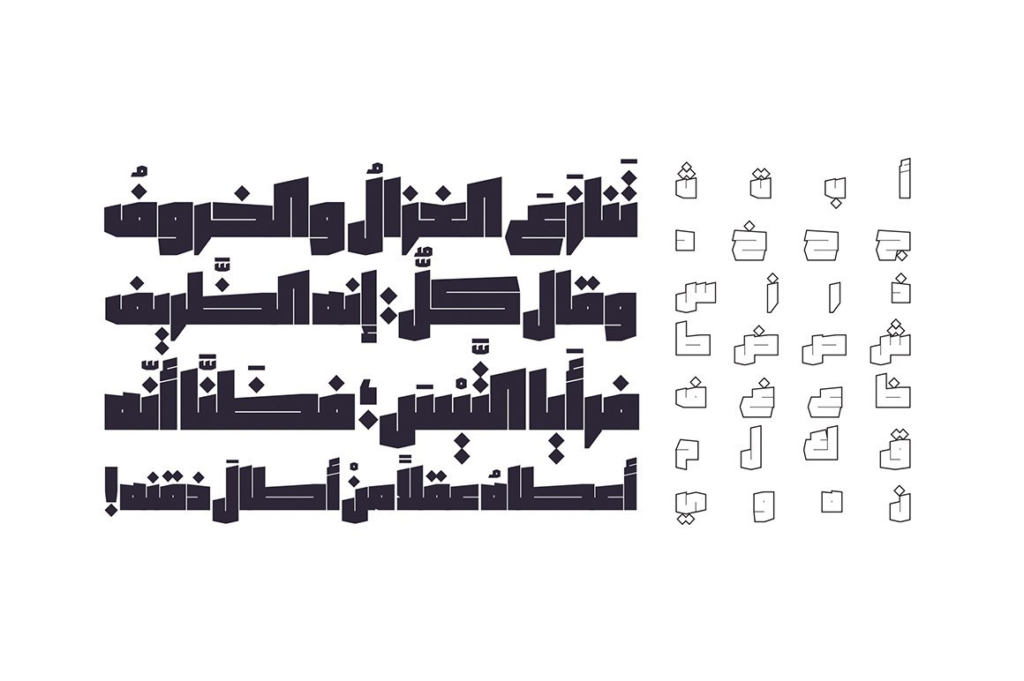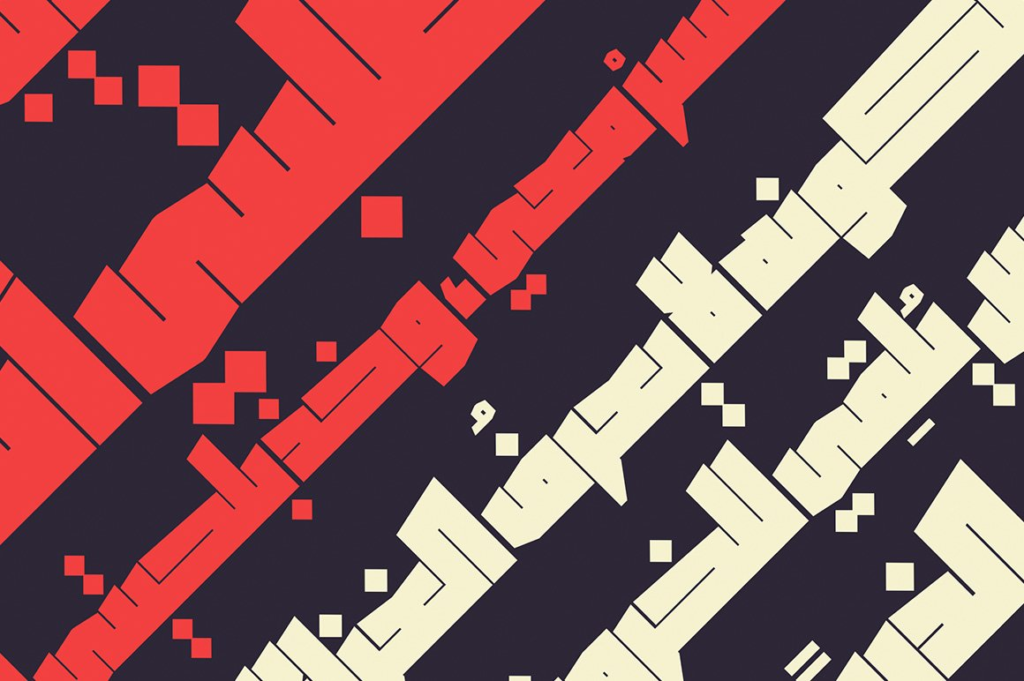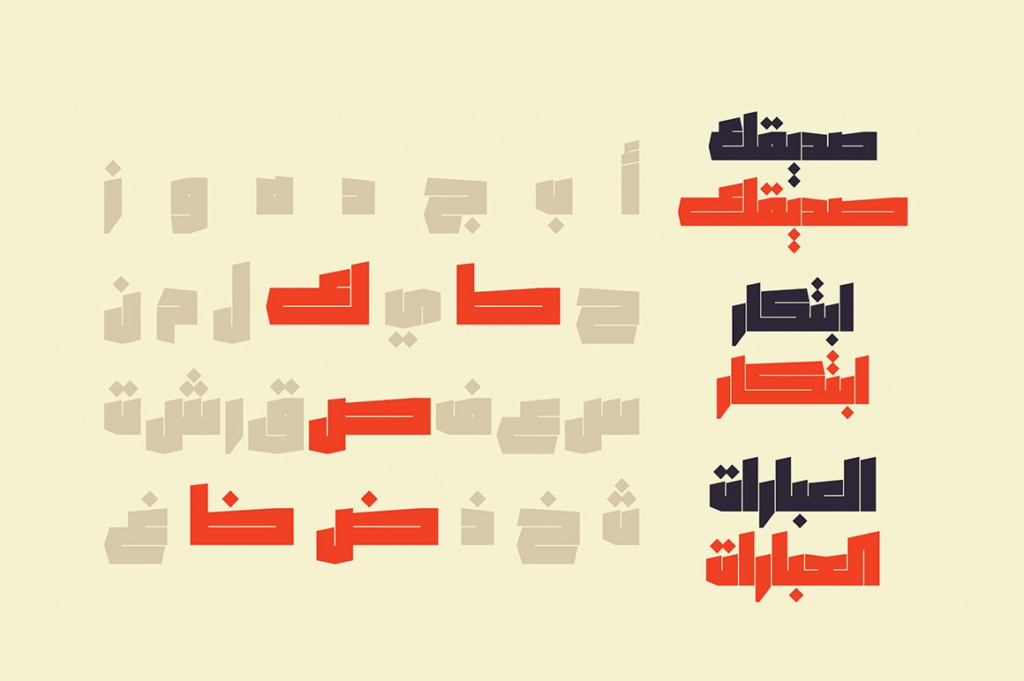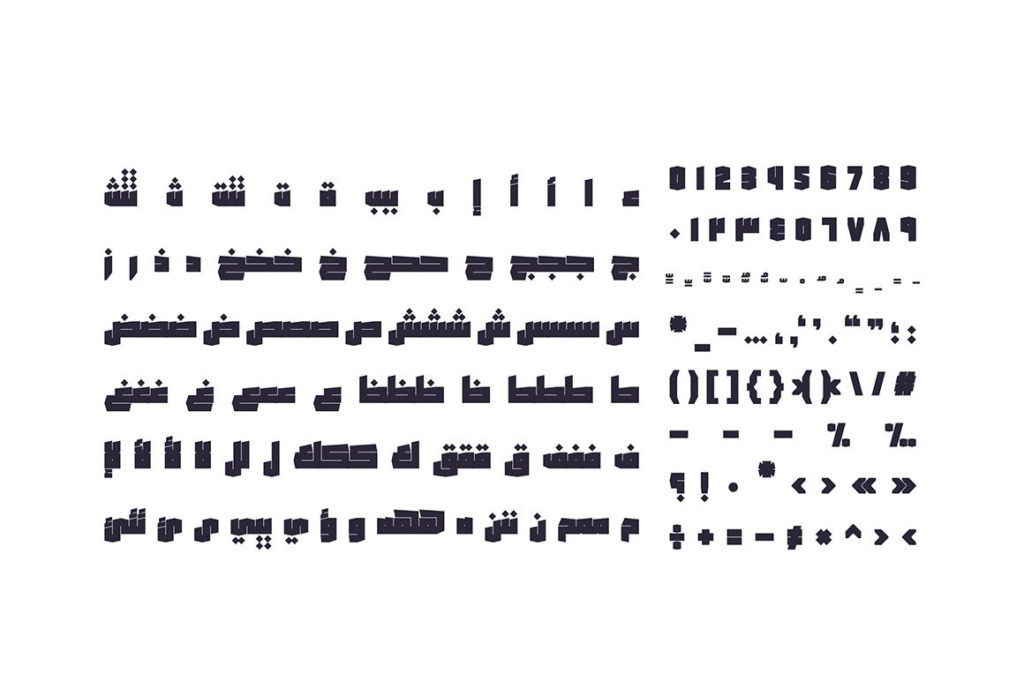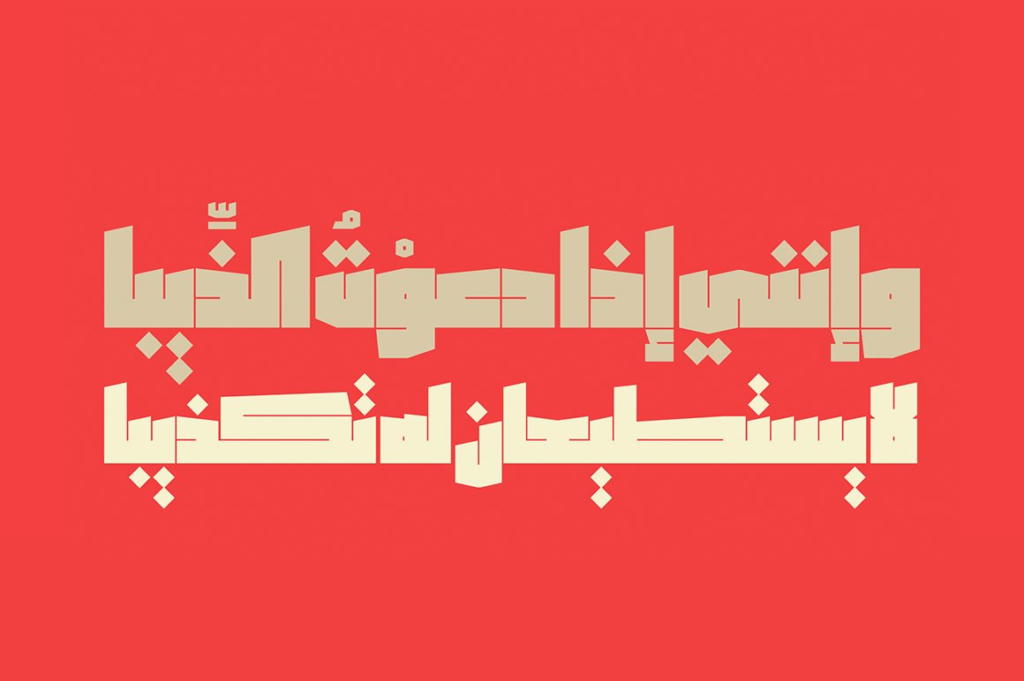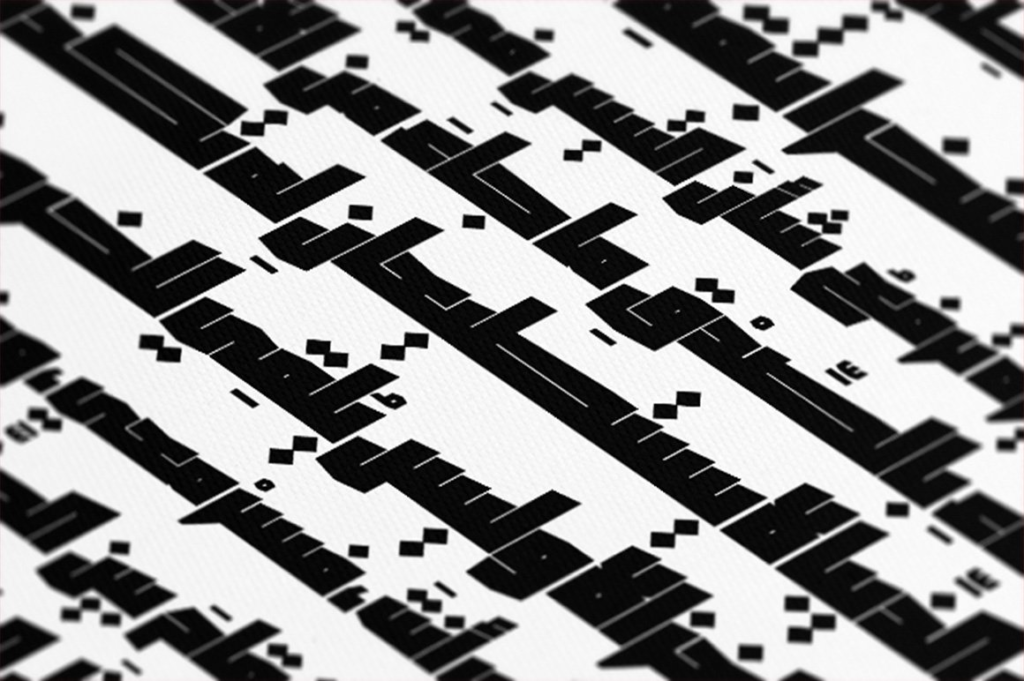
Saiihah Font
The word Saiihah is the Arabic for shout. Saiihah is an Arabic display font with an extra heavy style. It suits branding, posters and advertising.
Sayha is a substantial Arabic typeface representing a significant investment in typographic quality. With its large file size indicating extensive character sets, multiple weights, and professional-grade design, this font provides designers with everything needed for sophisticated Arabic projects across all media.
Comprehensive Design:
- Extensive Arabic character coverage
- Multiple weights and styles for complete design control
- Professional-grade letterforms with meticulous detail
- Refined, elegant design suitable for any application
- Complete typographic system for serious work
Arabic Script:
- Complete Arabic character set with full diacritics
- Extensive glyph coverage for professional typesetting
- Proper character connections and positioning
- Multiple weights for typographic hierarchy
- Optimized for both text and display applications
- Professional Publishing: Books, magazines, newspapers
- Corporate Identity: Comprehensive brand systems
- Editorial Design: High-end publications
- Packaging Design: Premium product presentation
- Web Design: Sophisticated digital typography
- Advertising: Professional campaigns
- Signage: Large-format displays
- Academic Publishing: Scholarly works
- Professional Grade: Highest quality for serious work
- Extensive Coverage: Comprehensive character sets
- Multiple Weights: Complete design flexibility
- Versatile Application: Perfect for any professional project
- Future-Proof: Extensive glyph support for any need
Key Features of Sayha Font:
- Professional Arabic design with extensive coverage
- Complete character sets with full diacritics
- Multiple weights and styles included
- Perfect for serious typographic work